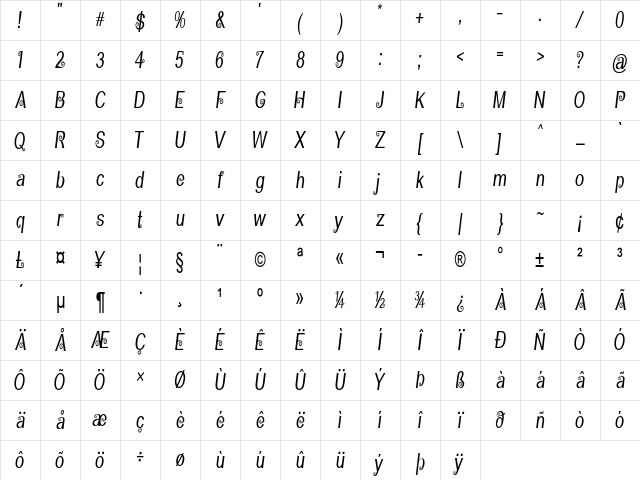
Complete Presta Condensed Regular glyph index. Displaying only characters natively supported by Presta Condensed Regular font.
Presta is a composed and adaptable typeface that performs quietly and consistently across a wide range of design contexts. Its narrow stance lets it pack a punch even in space-constrained designs.